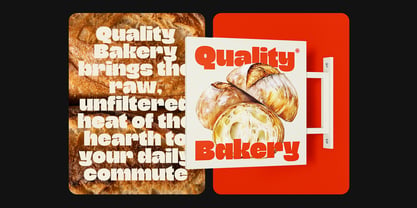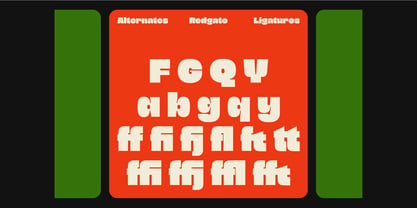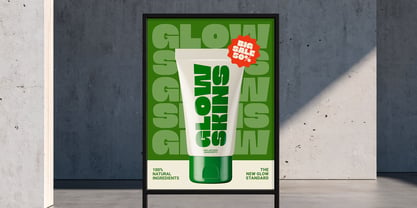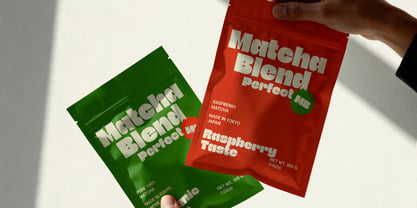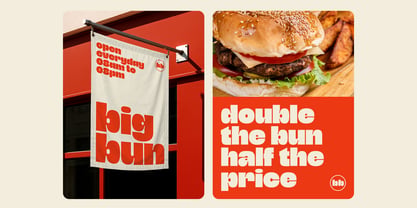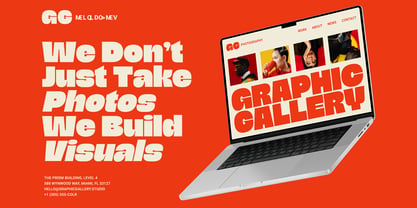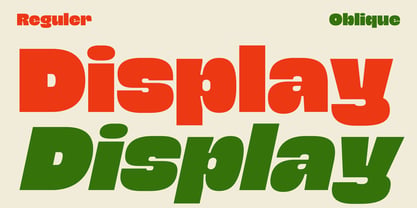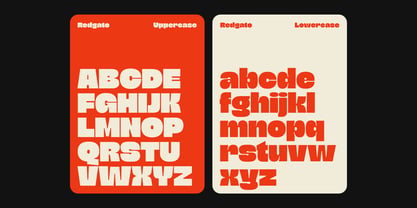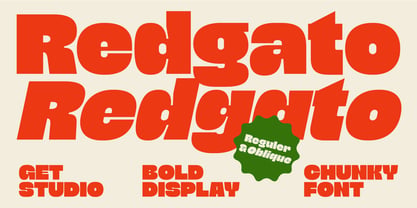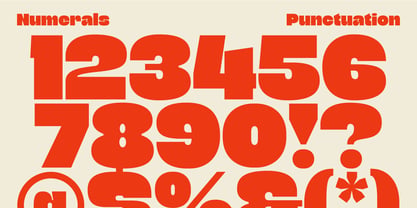
Redgato
von Get Studio
Die Schriftfamilie Redgato wurde von Hermansyah entworfen und von Get Studio veröffentlicht. Redgato enthält 3 Stile und Familienpaketoptionen. Mehr über diese Familie
Redgato is a chunky bold display font with sharp, blocky letterforms made to stand out instantly. Its heavy weight and crisp cuts give it a strong visual presence that feels confident, energetic, and eye-catching. Perfect for headlines, branding, packaging, posters, menus, and promotional designs that need bold impact.
Redgato comes with three styles: Regular, Oblique, and Blur. The Regular style feels solid and grounded, while the Oblique introduces a forward-leaning motion that adds attitude and emphasis. Together, they offer flexibility for expressive typography, especially suited for food branding, retail visuals, and modern display projects.
Designer: Hermansyah
Foundry: Get Studio